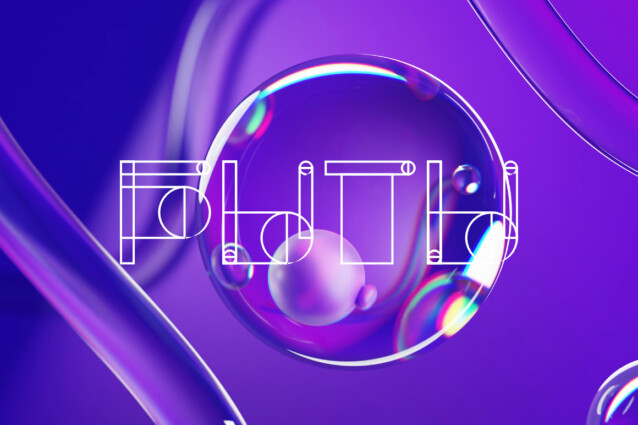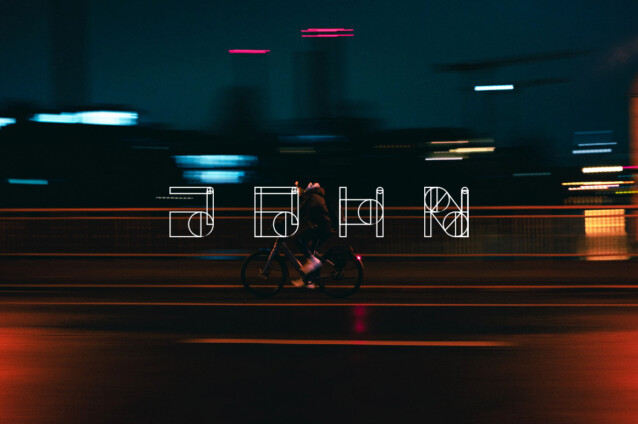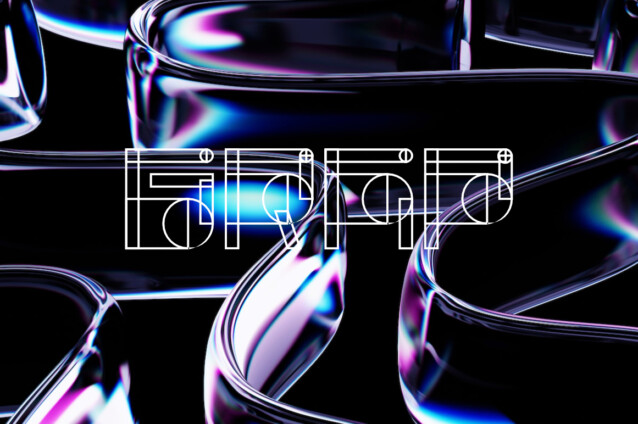
knoo Abstract Display Font is a cool and casual looking display font. No matter the topic, this font will be an incredible asset to your fonts’ library, as it has the potential to elevate any creation.